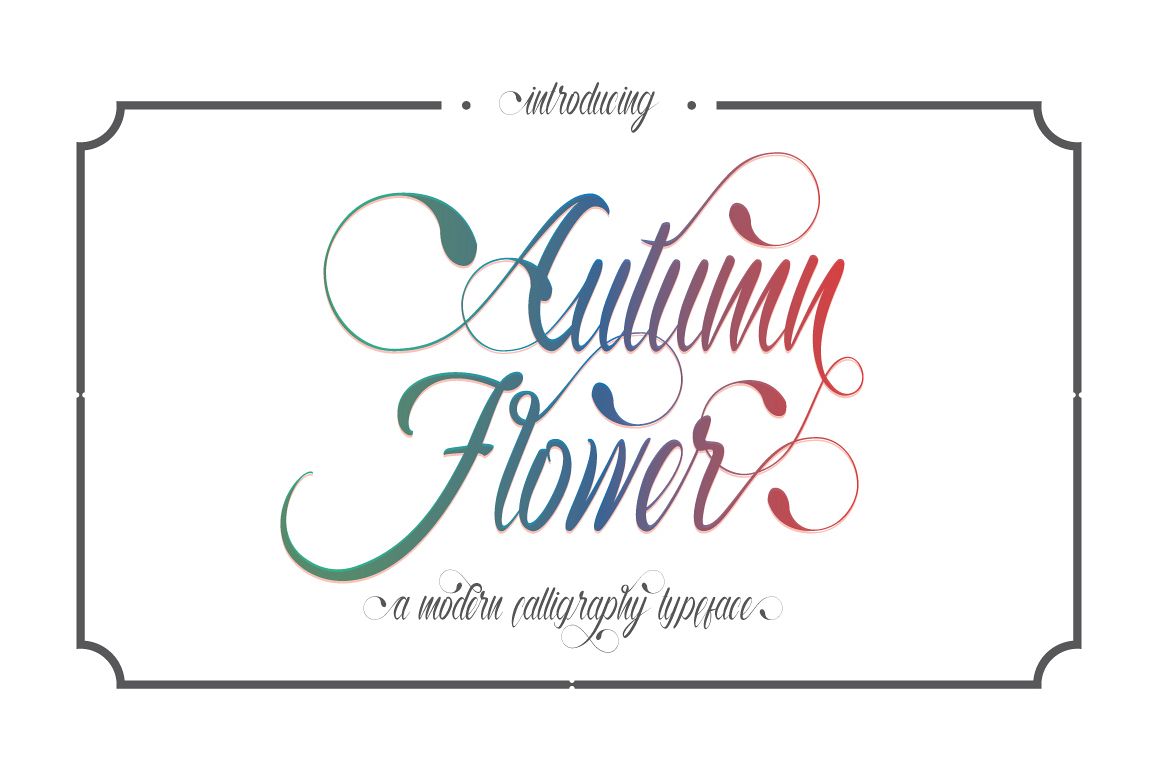
Autumn Flower Script
Autumn Flower.
Comes with upper and lowercase characters, large set of punctuation glyphs, numerals, and supports international languages. Stylistic alternates for several key lower case characters are also available, accessible in the Adobe Illustrator Glyphs panel.
Can be used for various purposes.such as headings, logos, wedding invitation, t-shirt, letterhead, signage, label, news, posters, badges etc.
This font seems like a bridge between traditional calligraphy and modern calligraphy with leanings towards the former. Lovely!